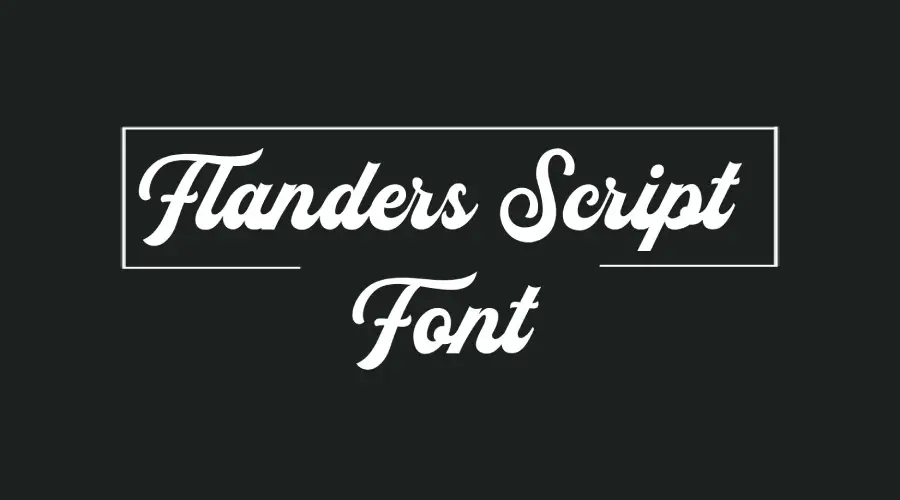
Flanders Script Font is a lovely Script and Calligraphy typeface that we’re going to show you today. This font has ligatures, stylistic alternates, contextual alternates, swashes, and multi-language support, among other OpenType features. Flanders Script Font is a complimentary typeface that enables you to quickly produce extrude or shadow effects without the use of any graphic tools. Letterhend created it and now owns it. The typeface is PUA Encoded Characters, which means it can be used without the use of any additional design program.
Flanders Script Font is a powerful and modern script that you can use for sports themes, logotypes, quotations, watermarks, and more. The font is ideal for use in t-shirt designs, as I discovered when I tested it and was blown away by the results. You can also use it as a vintage font in situations when you don’t want to utilize the standard vintage fonts. The font can also be utilized in a variety of logo designs, from traditional to authentic.
Flanders Script font is a calligraphy font that features high details and a smooth, seamless flow that beautifies your layout. It is suitable for various purposes, such as sporty themes, logotypes, quotes, watermarks, and more. If you want to use the Flanders Script font in your projects, you can download it from our website or use our Flanders Script font generator. And this font is all free. So, what are you waiting for? Give it a try now!